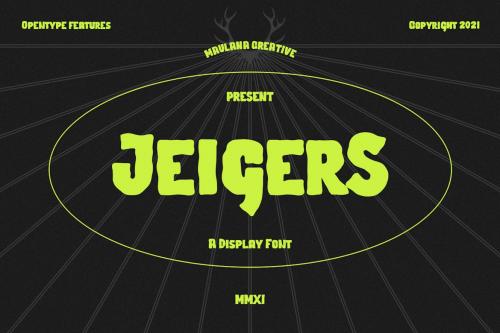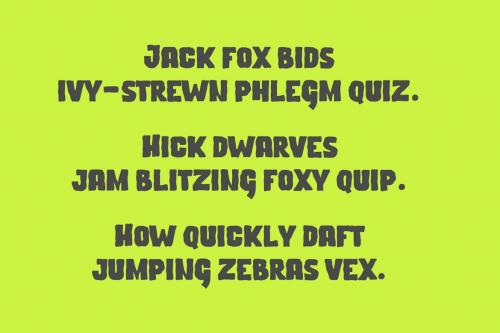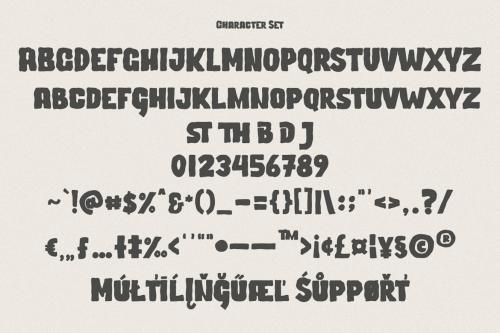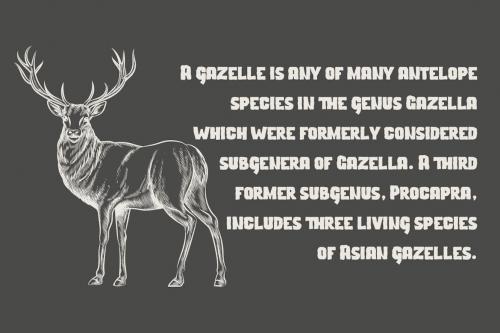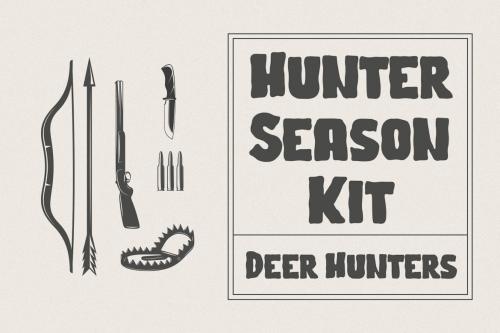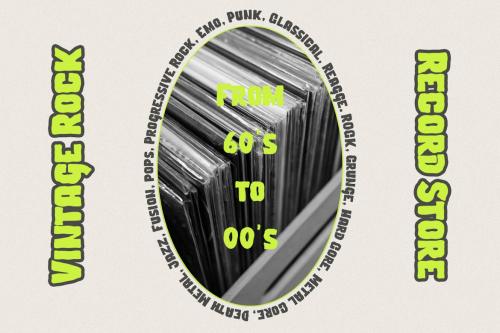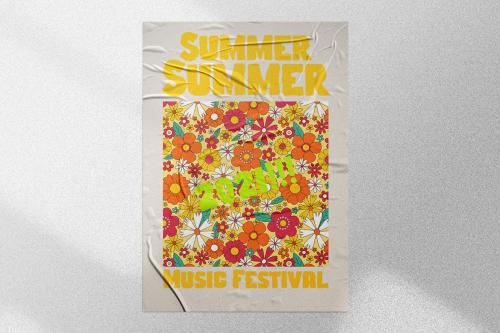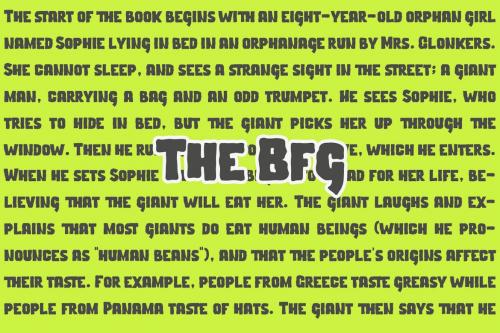
猎豹显示字体
Jeigers Display Font
Jeigers is a Decorative Display font. With bold stroke, uprights and fun character with a bit of ligatures and lowercase alternates. To give you an extra creative work. Jeigers font support multilingual more than 100+ language. This font is good for logo design, Social media, Movie Titles, Books Titles, a short text even a long text letter and good for your secondary text font with sans or serif. Make a stunning work with Jeigers font.